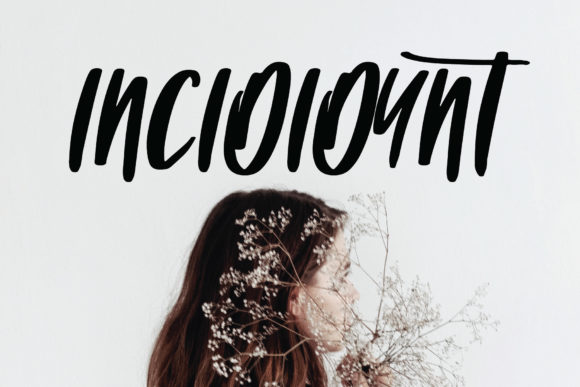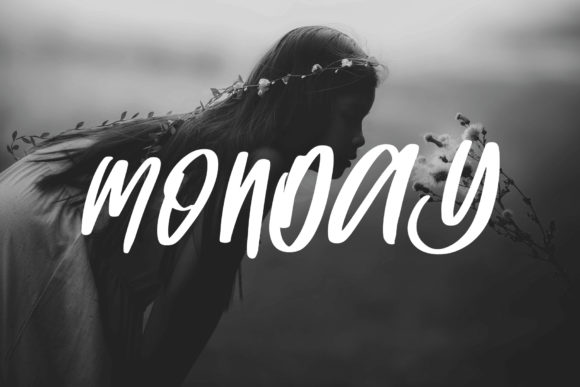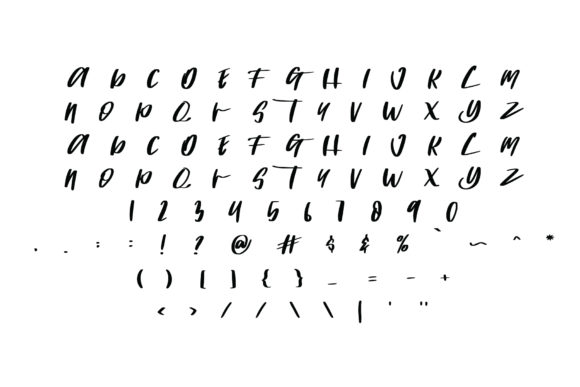
HomeScript FontsIncididunt Font Script Fonts Incididunt Font FacebookXPinterestWhatsApp Incididunt Font Poster 2 Incididunt Font Poster 3 About Incididunt Font Incididunt is a sweet and charming script font that will make any design idea stand out! DOWNLOAD NOW People also explored Galendra Font Nathin Flogina Font Ringtone Font Getout Lemonade Font Sunset Script Font Luxury Monogram Font Christmas Around Font Baile Guneta 288 0 TagsIncididunt Font Previous articleCommodo FontNext articleSinten Font LEAVE A REPLY Cancel reply Comment: Please enter your comment! Name:* Please enter your name here Email:* You have entered an incorrect email address! Please enter your email address here Website: Save my name, email, and website in this browser for the next time I comment. Personal Use Free Recharge Bold Personal Use Free Read more about this font Bonifaciy Personal Use Free Read more about this font Malinda Personal Use Free Read more about this font BD RatterBit Personal Use Free Read more about this font BLOG Elegant Wedding Invitation Fonts – Handwritten & Script Fonts Elegant Wedding Invitation Fonts Your wedding day is one of the most important moments of your life, and every detail matters—including your invitation design. Our... Free Fonts Risk: Why Free Fonts Can Be Dangerous for Designers Top 10 Handwritten Fonts That Elevate Your Designs Best Fonts for YouTube Videos: Make Your Thumbnails Stand Out